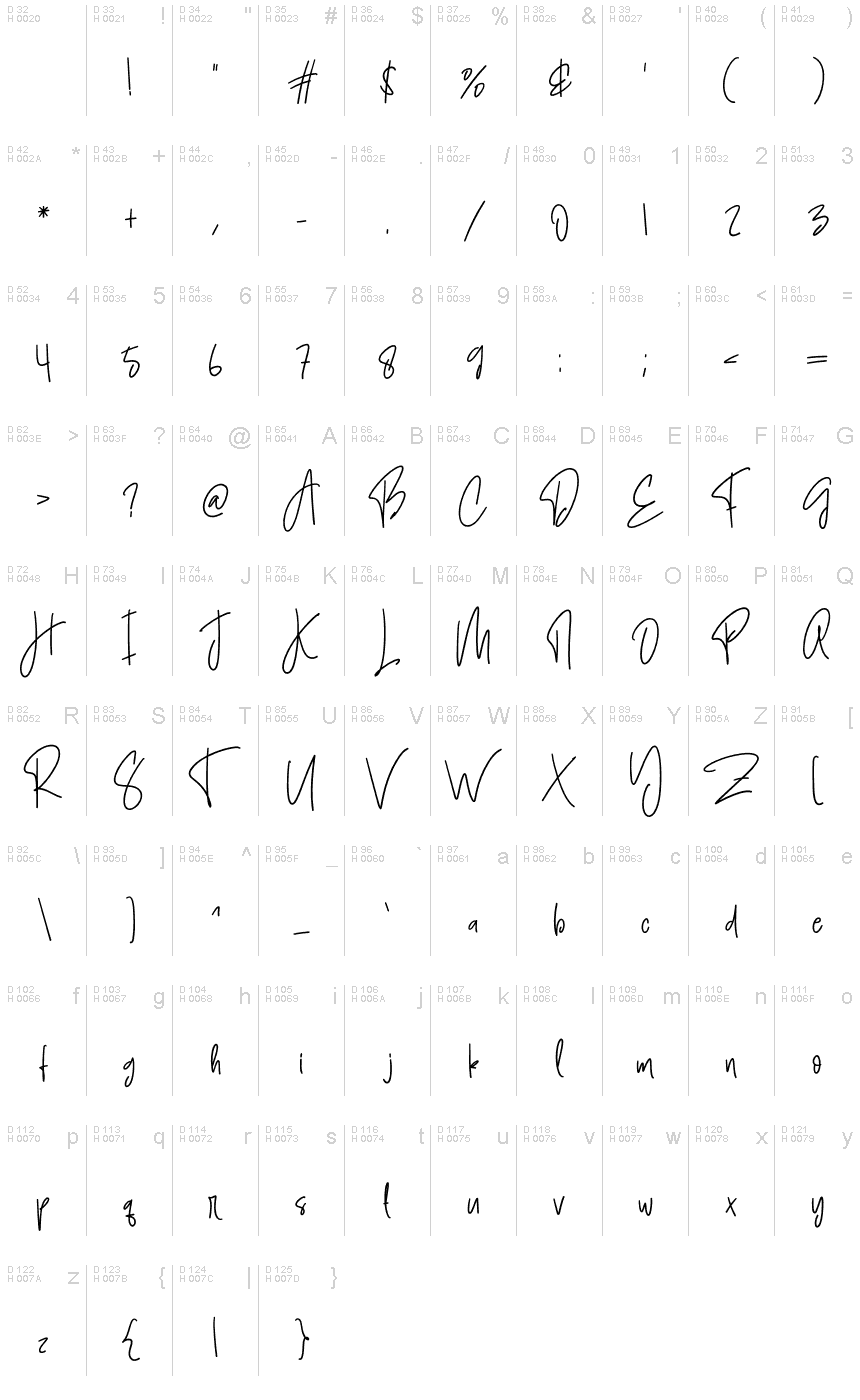
Signature In Card
Signature In Card, designed by Scratchones, is a delightful handwritten font that exudes elegance and sophistication. With its light weight and semi-condensed width, this font perfectly captures the essence of a personalized signature. It adds a touch of refined beauty to any project it graces.
Ideal for invitations, greeting cards, and stationery designs, Signature In Card lends an air of exclusivity to wedding announcements or upscale events. Its graceful curves and flowing strokes also make it suitable for fashion logos or branding materials for high-end boutiques. Let this exquisite font elevate your projects with its authentic handwritten feel and timeless appeal.